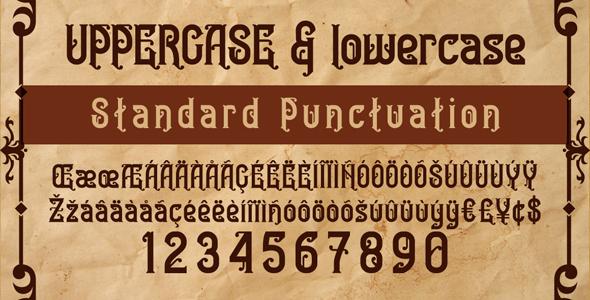
Bedesau Typeface
Humbly presents to you, BEDESAU Typeface The experimental font which inspired from art nouveau movement. Looks good for your display, subheadline & bodytext, tested on Adobe Illustrator, Photoshop, CorelDraw, InDesign and etc. Available in shadow style which recommended for your headline. Typeface featured : - Uppercase - Lowercase - Numbers - Standard Punctuation - Basic Latin Glyphs OTF – TTF files with Regular and Shadow style in Zip file. Well, Thank you for visit and feel free to drop me a message if you have any question or advices.